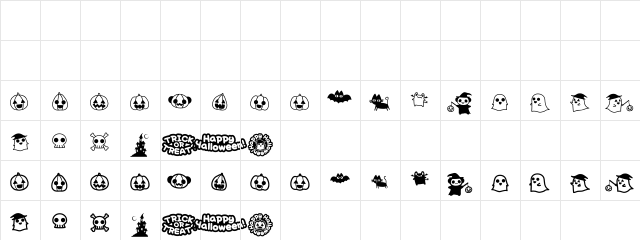
AKHalloweenParty Regular Font Preview
AKHalloweenParty Regular
AKHalloweenParty Regular Font Details
Design Context for AKHalloweenParty Typeface
AKHalloweenParty is a composed and adaptable typeface that performs quietly and consistently across a wide range of design contexts.